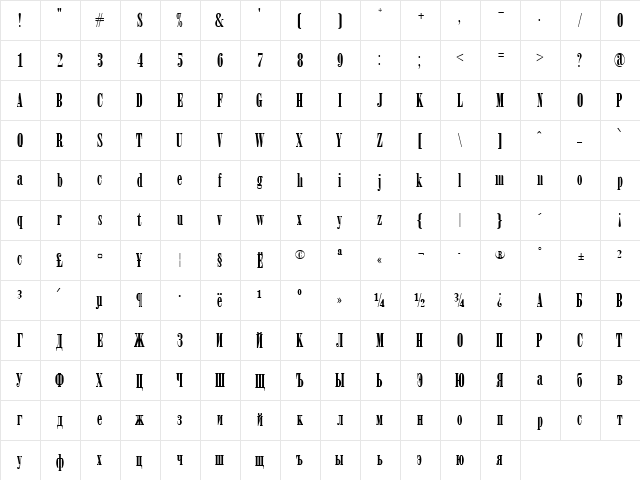
Arsis Regular
Design Context for Arsis Typeface
Arsis offers clean, dependable letterforms without strong stylistic allegiance, making it a practical choice for designers who need flexibility.
Pro Tip: Pair Arsis with a font of contrasting weight or personality to build a more expressive typographic hierarchy.